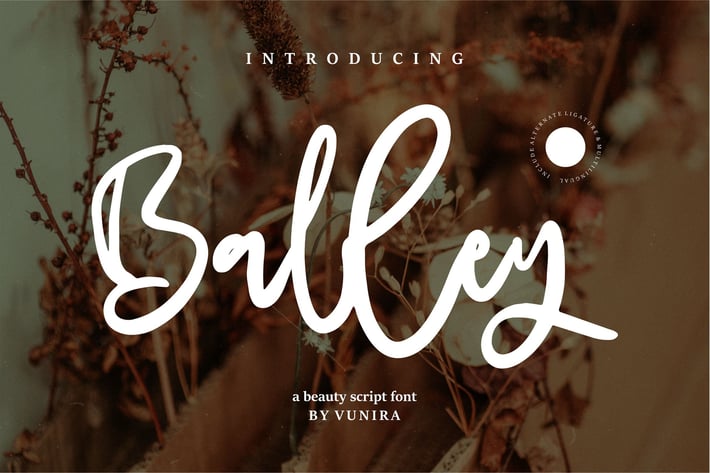
Balley | A beauty Script Font
Balley | A beauty Script Font with a calligraphy style, So beautiful on invitation like greeting cards, branding materials, business cards, quotes, posters, and more!